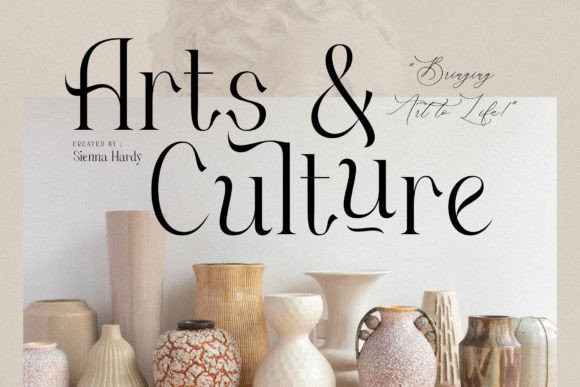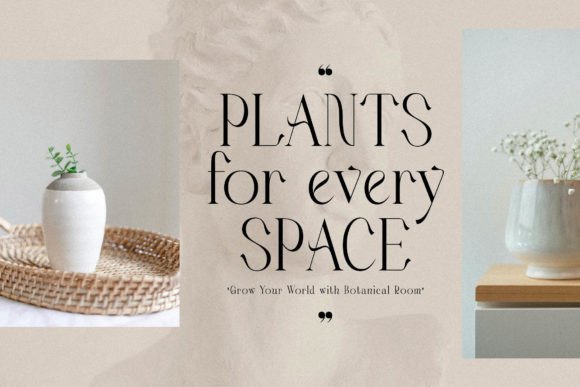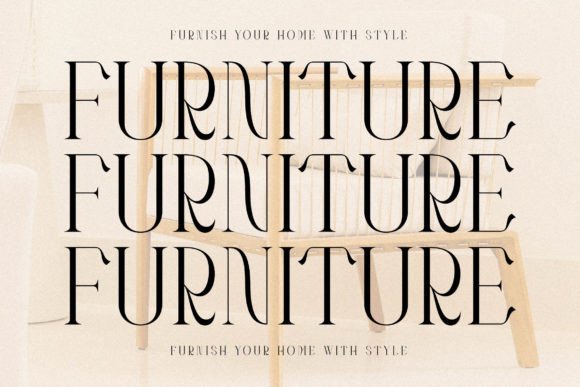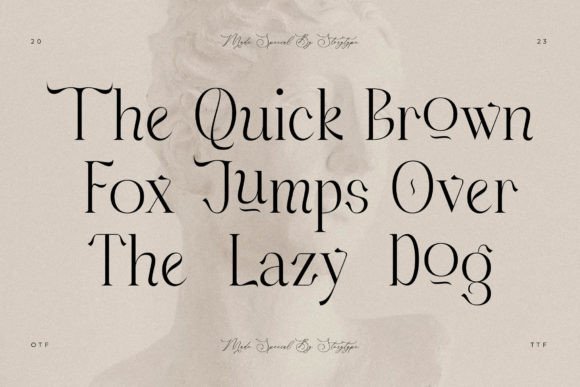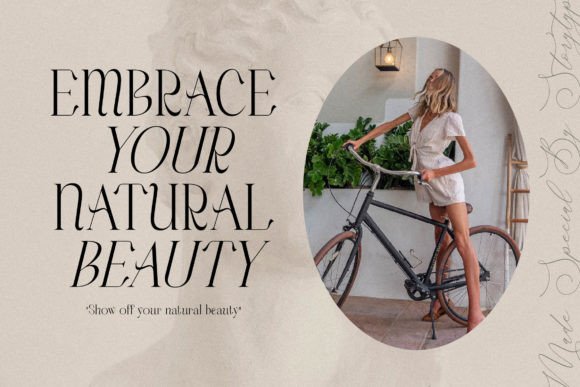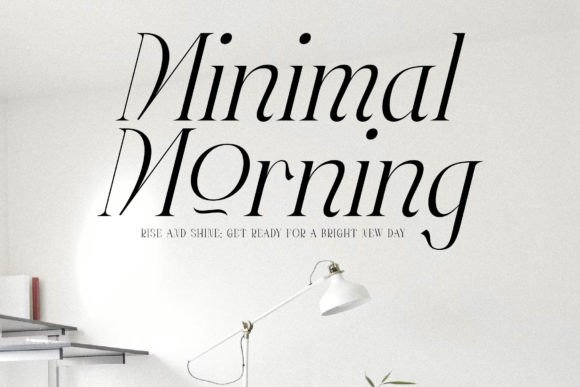
Introduction to Makgery Font
Remember that moment when you’re working on a creative project and you’re searching for the perfect font to elevate your design? You want something that stands out from the crowd, yet still conveys a sense of sophistication and elegance. For designers, finding the right font can be a game-changer, and that’s exactly where the Makgery Font comes in.
With its modern and stylish serif design, the Makgery Font is a versatile and high-quality design resource that’s perfect for a wide range of applications, from fashion brands and magazines to apparel and lettering. Whether you’re working with a transparent background or a solid one, this font is sure to make your design pop.
Key Features of Makgery Font
- Unique, hand-drawn design ideal for creative projects requiring a personal touch
- Transparent background option allows for seamless integration with various design elements and backgrounds
- Designed to be highly versatile, suitable for use in a variety of design projects, from logos and branding to digital art and creative writing
- Perfect design resource for artists and designers looking for a unique and high-quality font to elevate their creative project
Honest Review: Makgery Font
I recently stumbled upon the Makgery Font and I must say, it’s been a game-changer for my creative projects. As a designer, I’m always on the lookout for high-quality fonts that can elevate my designs. The Makgery Font does just that, with its sleek and modern aesthetic.
What works well with the Makgery Font is its versatility. It can be used for a variety of design projects, from logos to headings and even body text. The font also comes with a transparent background, making it easy to use on both light and dark backgrounds. ✨
- Perfect for creative projects, such as logos, headings, and body text
However, there are some limitations to the Makgery Font. The font is only available in a few weights, which may not be suitable for projects that require a wide range of font weights. Additionally, the font may not be suitable for small text sizes, as it can become difficult to read. ⚠️
Transparent Background and Design Tips
Makgery Font has a transparent background, making it ideal for use in creative projects where a clear background is required. To get the most out of Makgery Font, use it in conjunction with other high-quality design resources, such as images and graphics. Experiment with different font sizes, colors, and layouts to create unique and visually appealing designs.
Common Use Cases for Makgery Font
Makgery Font is a versatile design resource that can be used in a variety of creative projects, including:
- Infographics and presentations